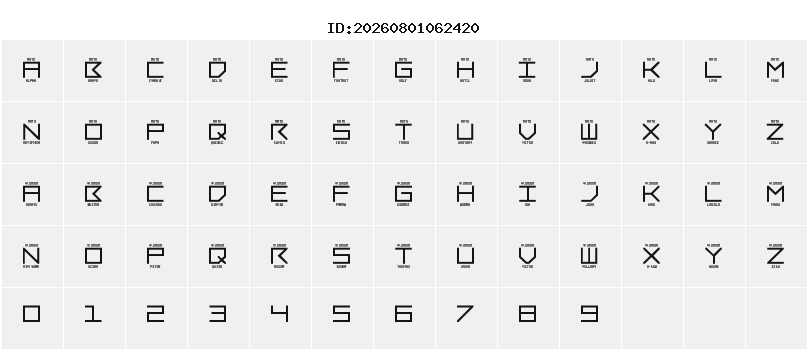
LNR Phonetic Alphabet Preview
• Font Name: LNR Phonetic Alphabet
• Designer: Andrew McCluskey
• Description: ‚ÄúLNR Phonetic Alphabet‚Äù was built with FontStruct
About LNR Phonetic Alphabet.ttf
LNR Phonetic Alphabet.ttf is a modern, elegant sans-serif font designed for ultimate readability and visual harmony. Perfect for branding, headlines, web design, and print materials.